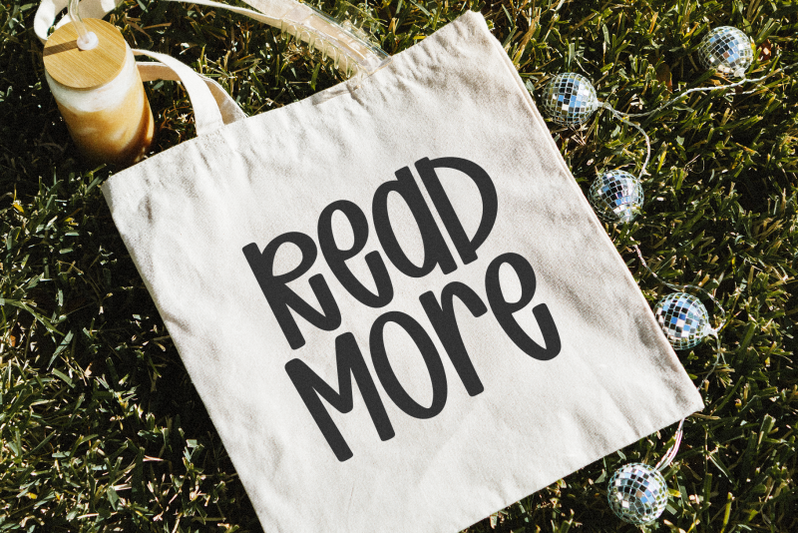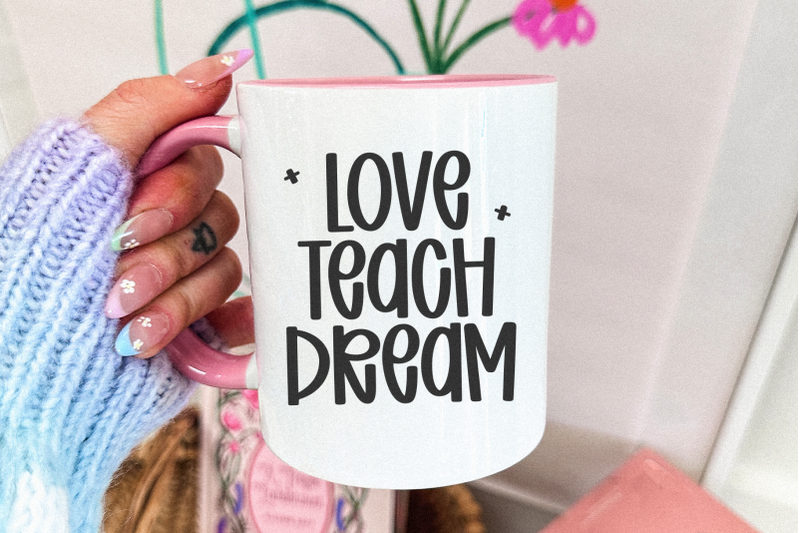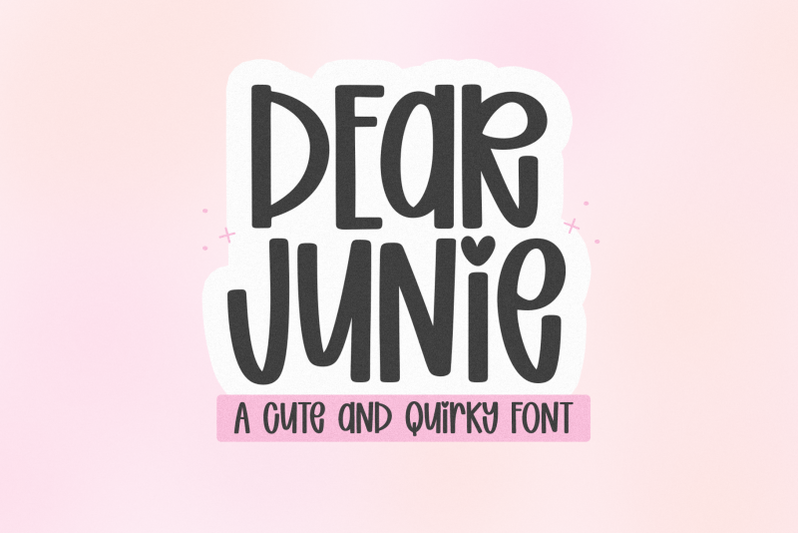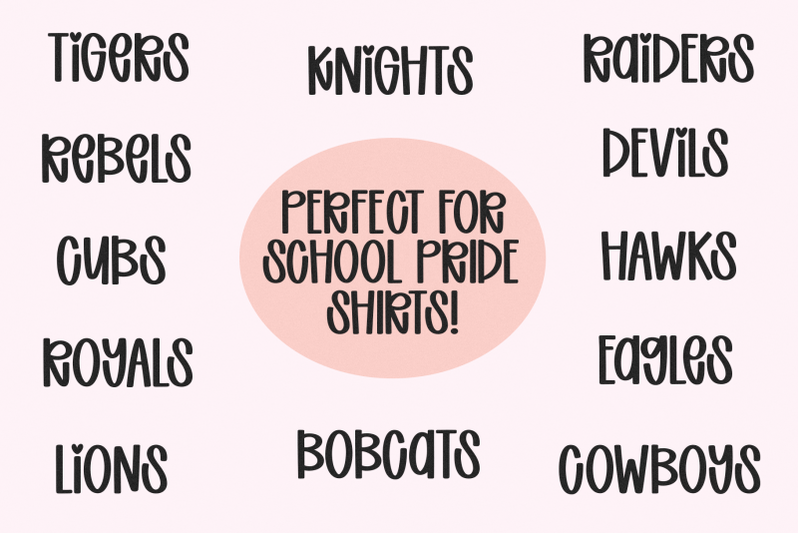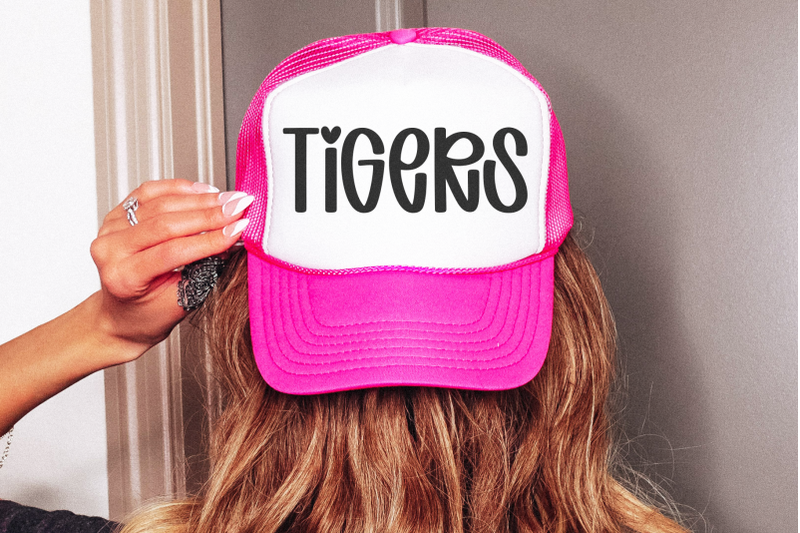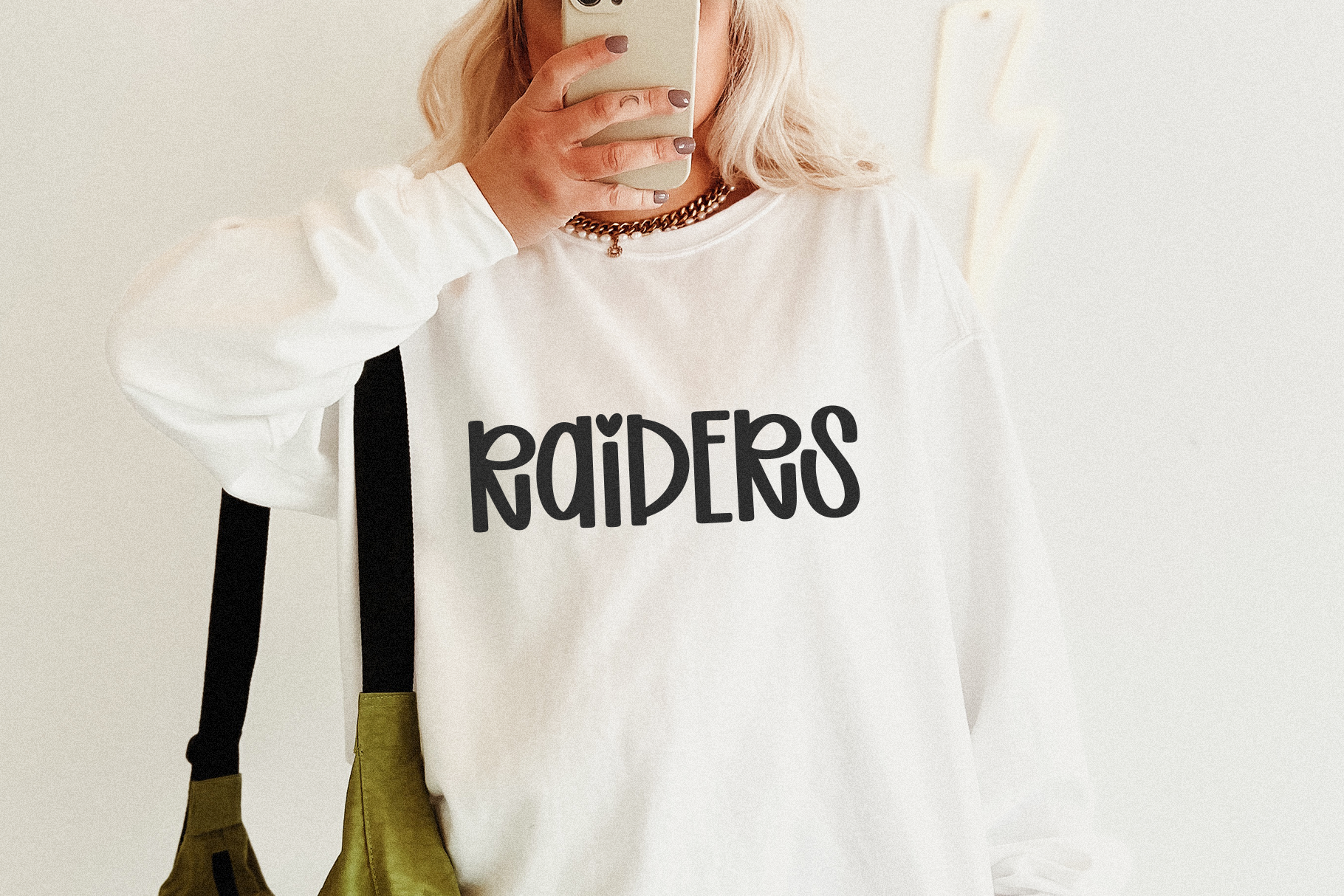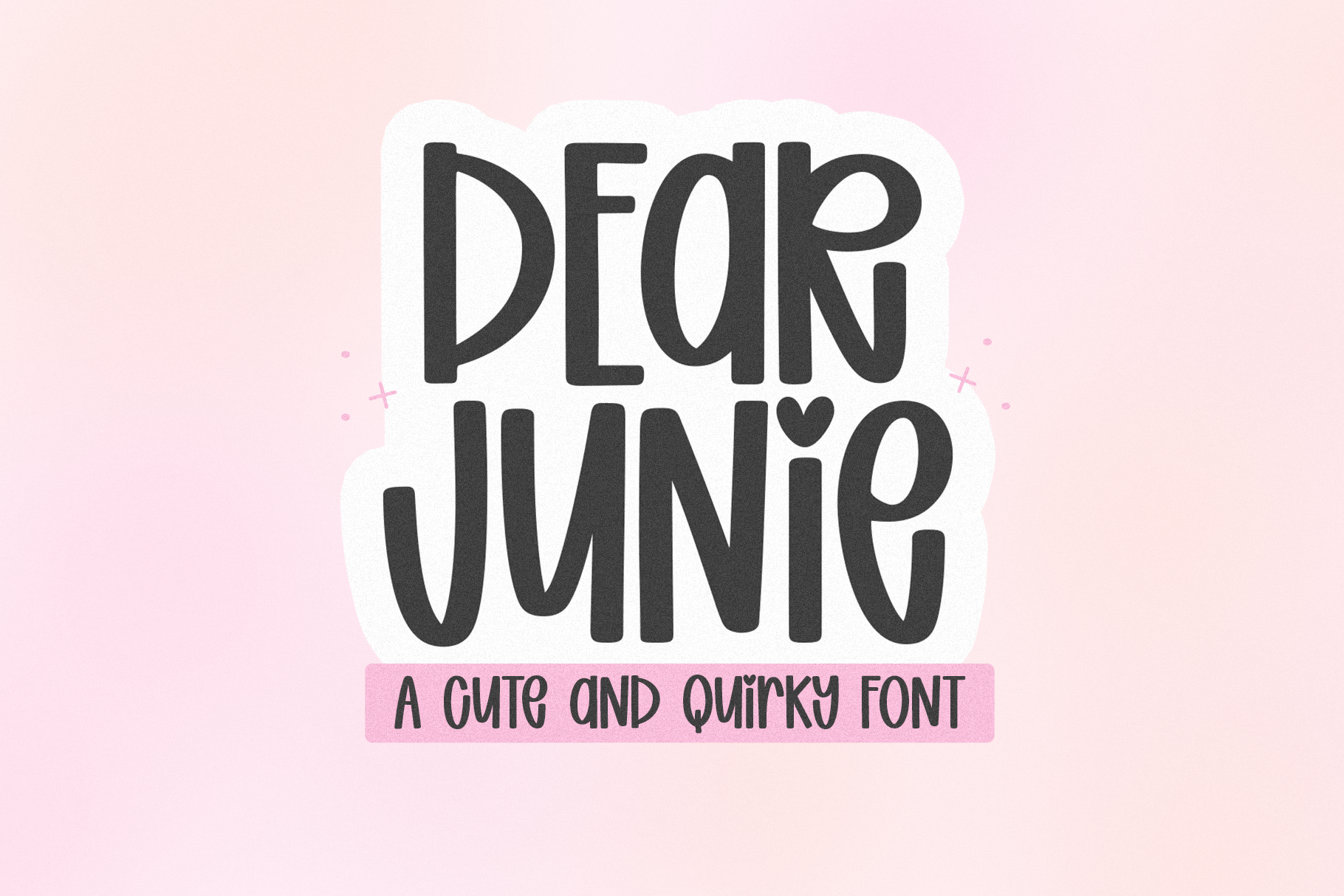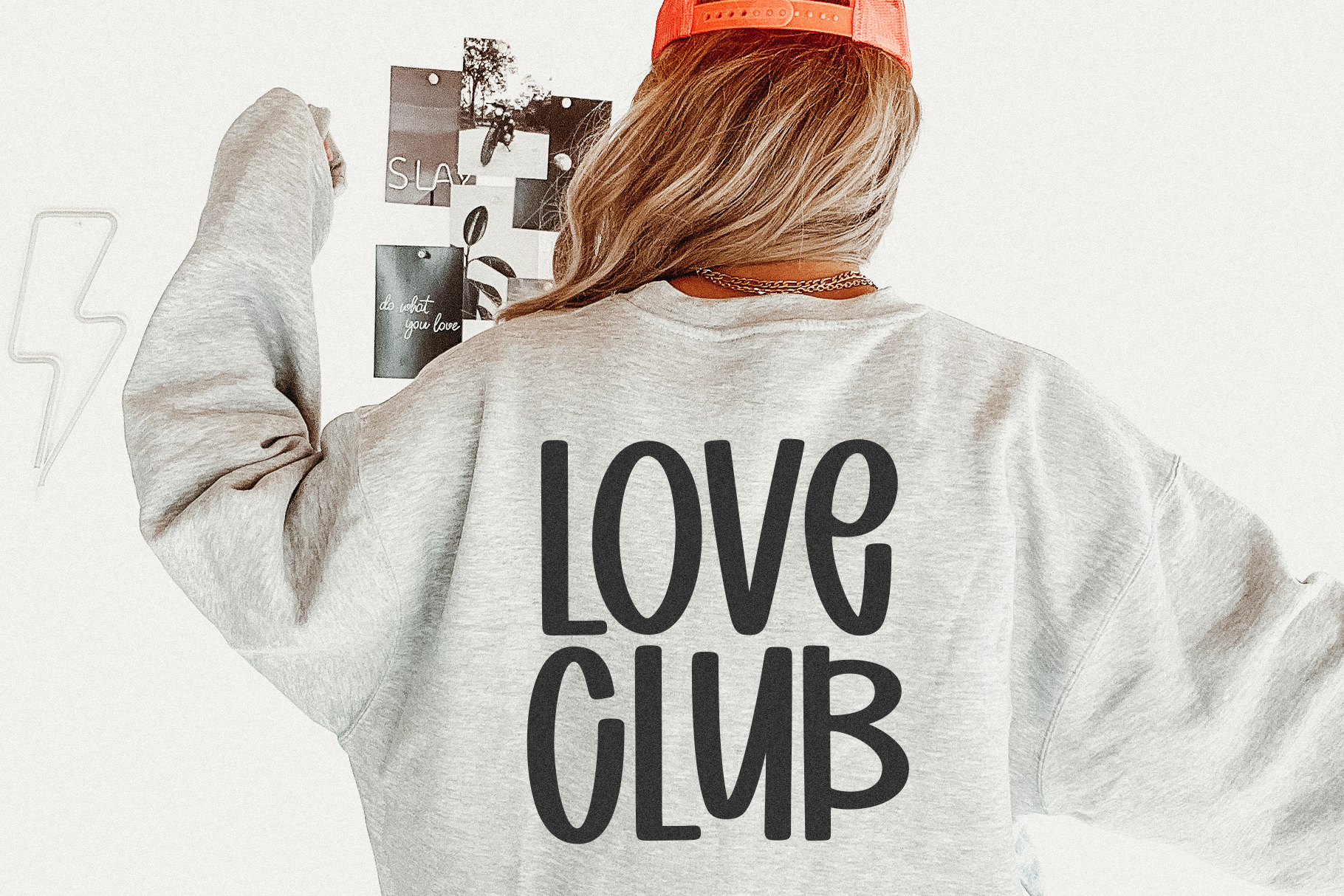
Dear Junie - Cute and Quirky Font
Dear Junie is a cute + quirky handwritten font.   Use to access regular lowercase I Use ^ to access heart design   This font is perfect for logos, cricut projects, stickers, svg files, canva, painted banners, quotes, teachers, lasers, goodnotes and more!   OTF/TTF   Thank you!